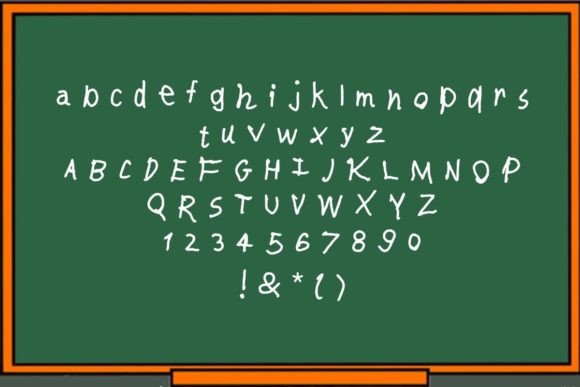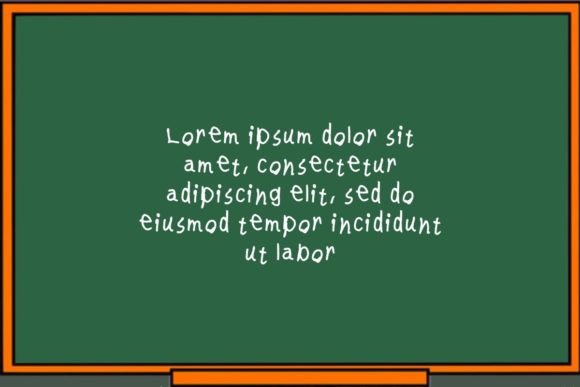
The Magic of Childhood Font: A Designer’s New Best Friend
I still remember the time I was working on a back-to-school project for a client, and I was on a mission to find the perfect font that captured the essence of childhood. I scrolled through countless font libraries, but nothing seemed quite right. That was until I stumbled upon the Childhood font – a fun and quirky handwritten font that instantly transported me back to the carefree days of youth. In this article, I’ll share my experience with the Childhood font, its features, and how to make the most of it in your designs.
An Honest Review of Childhood Font
So, what makes the Childhood font so special? Let’s dive into the good stuff! 😊
- ✨ Unique and playful: The Childhood font has a one-of-a-kind charm that screams childhood fun. It’s perfect for designs that require a personal touch.
- ✅ Easy to read: Despite its playful nature, the font remains highly legible, making it suitable for both headings and body text.
- 💕 Emotional connection: The font’s whimsical feel evokes a sense of nostalgia and warmth, making it ideal for projects that require an emotional connection with the audience.
Now, no font is perfect, and Childhood has a few quirks to keep in mind:
- 🤔 Limited use in formal designs: While the font is amazing for creative projects, it might not be the best fit for formal or professional designs that require a more serious tone.
- ⚠️ Kerning issues: As with any handwritten font, you might encounter some kerning issues. Be sure to adjust the tracking and kerning to ensure optimal readability.
The Story Behind Childhood Font
The Childhood font was designed with the intention of capturing the innocence and playfulness of childhood. The designer aimed to create a font that would transport users back to a time of simplicity and wonder. By incorporating subtle imperfections and irregularities, the font achieves a delightfully handmade feel that’s perfect for creative projects.
| Font Name | Childhood Font |
| Author | Ольга Лабутина |
| What is the Childhood font best used for? | The Childhood font is ideal for creative projects, such as DIY crafts, social media graphics, and back-to-school materials, that require a playful and whimsical touch. |
| Is the Childhood font suitable for body text? | While the font is legible, it’s best used for headings and titles. For body text, consider using a clearer font to ensure optimal readability. |